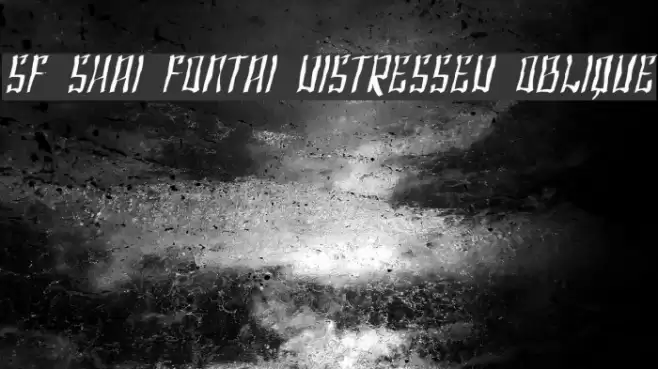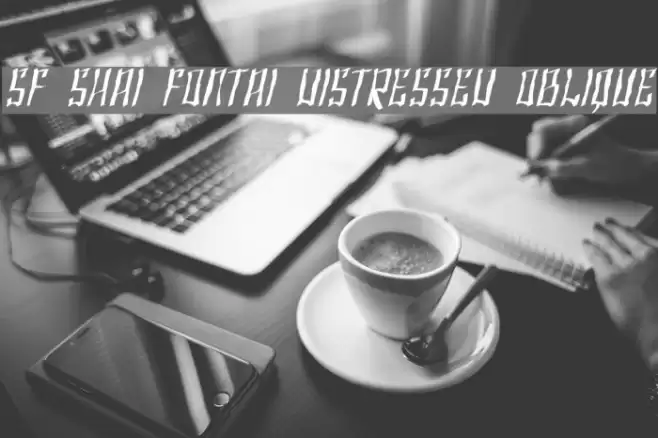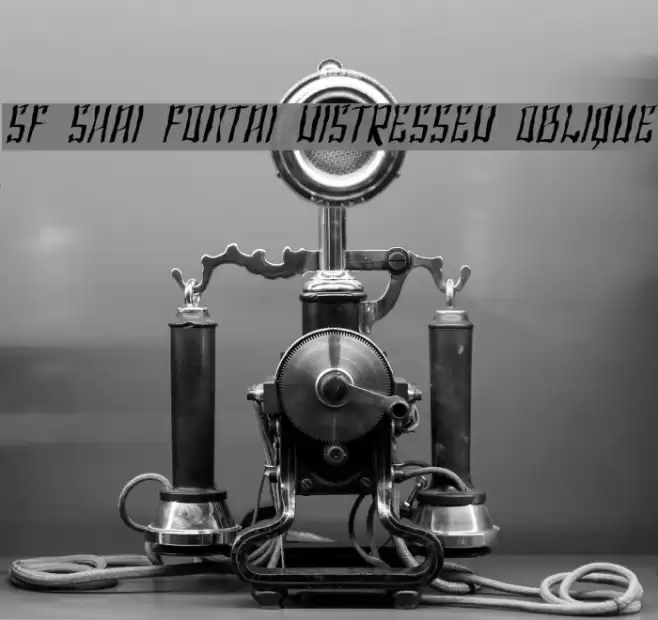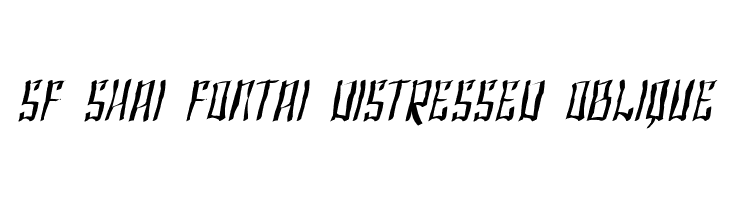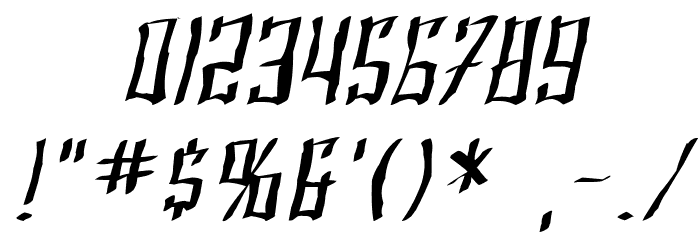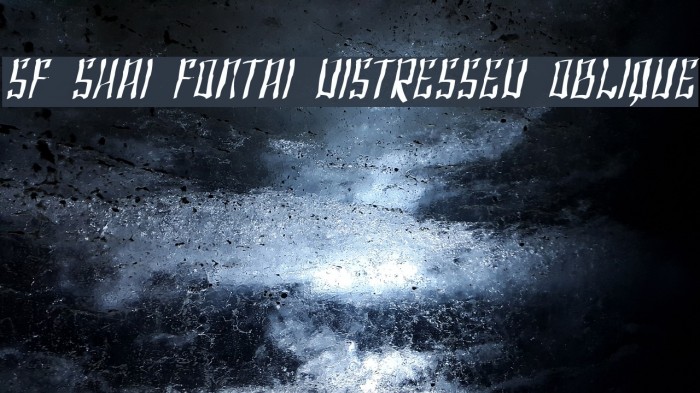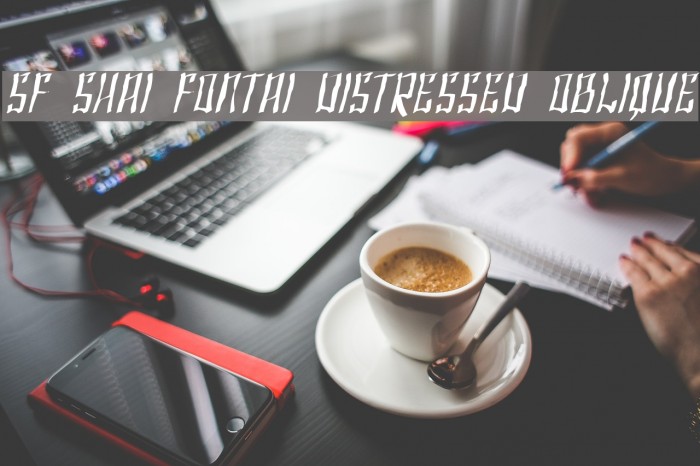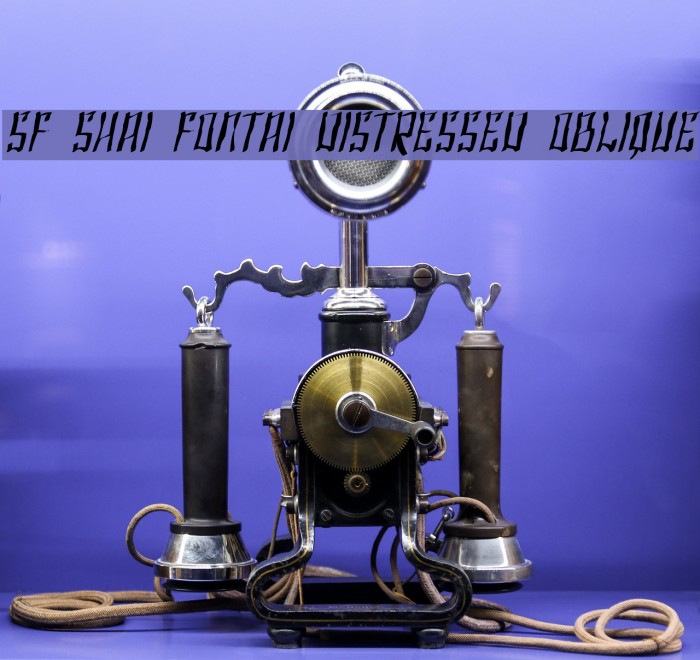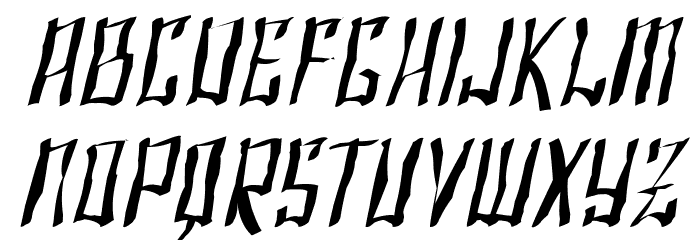
SF Shai Fontai Distressed Oblique Font
SF Shai Fontai Distressed Oblique Description
This font features a distressed and oblique style, characterized by its sharp, angular lines and a slightly worn appearance. The letters are slanted, giving a sense of motion and urgency. The distressed effect adds a rugged, vintage feel, making it stand out with its unique texture. The uppercase and lowercase letters maintain consistency in style, with numbers and special characters following the same design principles. This font is ideal for projects that require a bold and edgy look, such as posters, album covers, or branding for alternative products.
A distressed, oblique font with sharp, angular lines and a rugged texture from Asian fonts.
- Proposed Projects: Ideal for posters, album covers, edgy branding, and vintage-themed designs.
- Overall Style: Vintage, Edgy